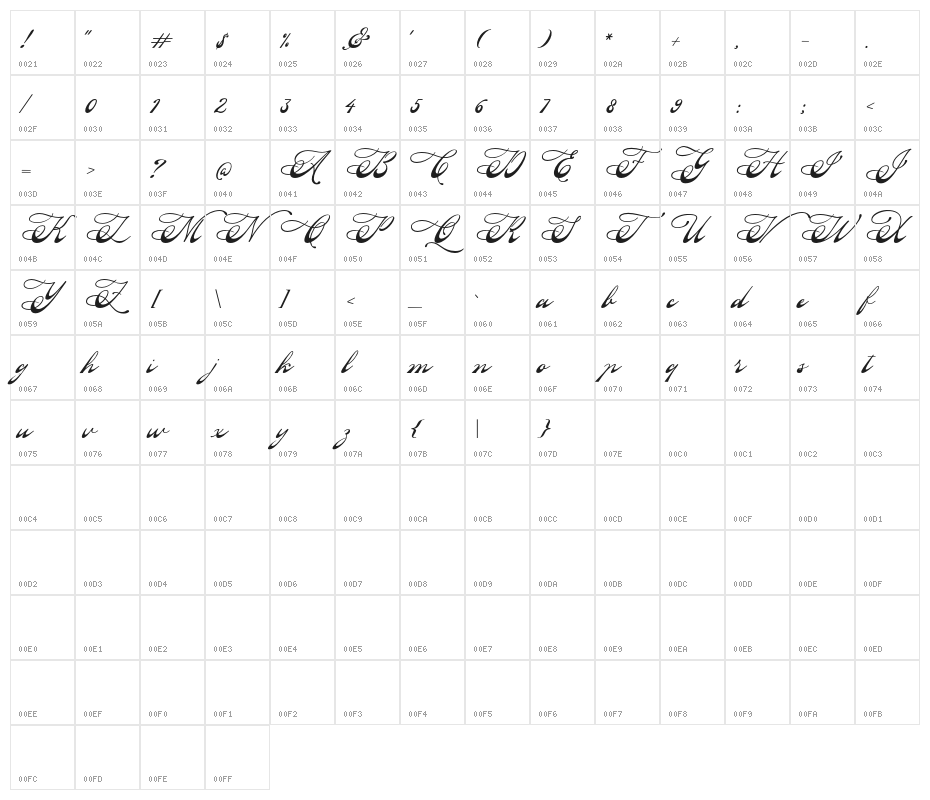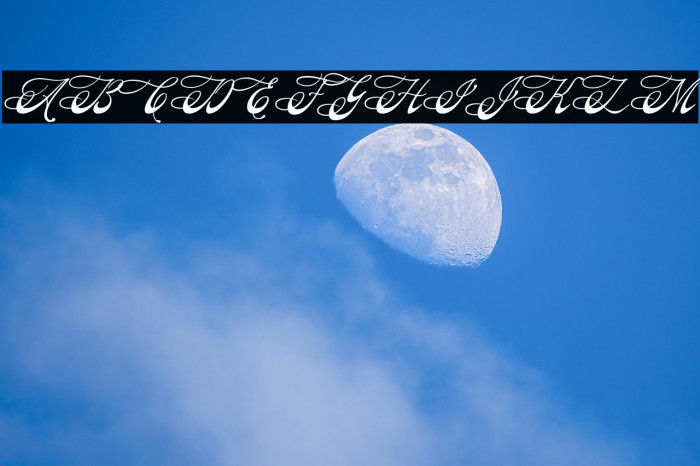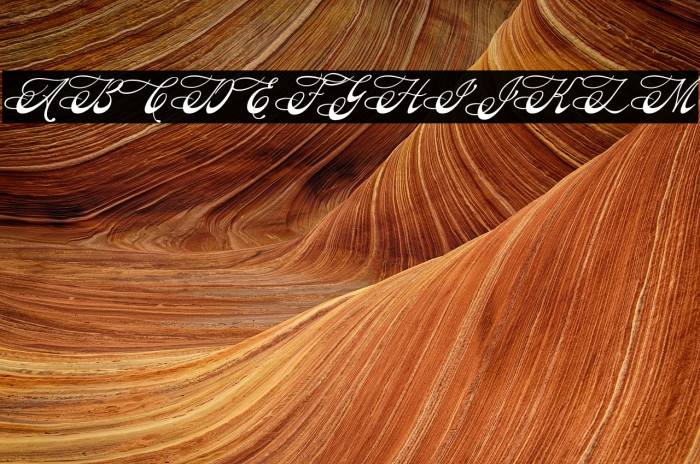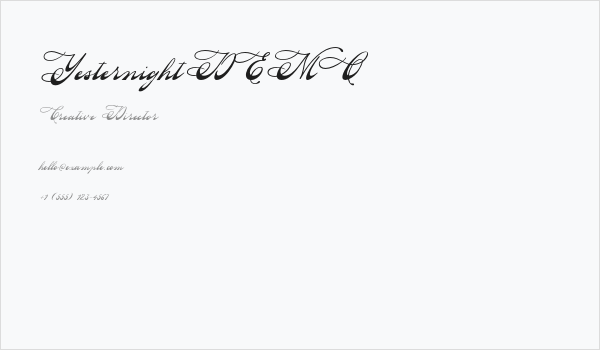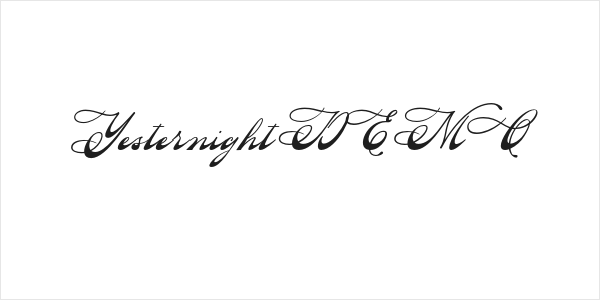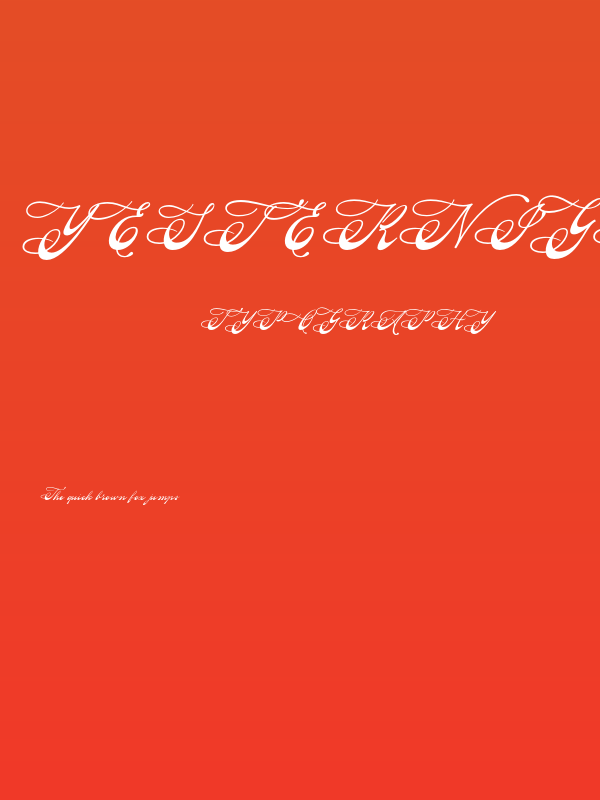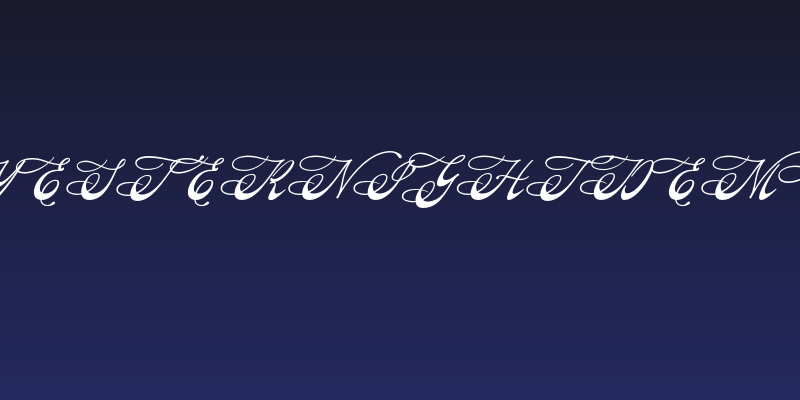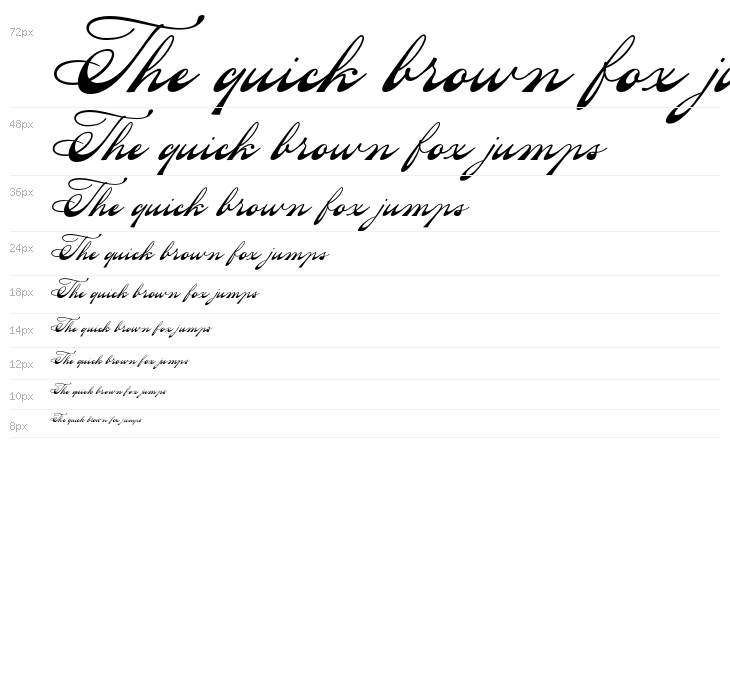
YesternightDEMO Font
YesternightDEMO Description
This elegant script font features a flowing, cursive style with intricate swashes and flourishes. The uppercase letters are ornate, with extended loops and decorative elements that give a sense of sophistication and grace. The lowercase letters maintain a consistent slant, enhancing the fluidity and elegance of the text. Numbers and special characters are designed to match the overall aesthetic, providing a cohesive look. The font's high contrast between thick and thin strokes adds to its dramatic and stylish appearance, making it suitable for formal and decorative purposes.
| Overall Style | Elegant, Decorative |
| Use Case | Logos, Invitations, Decorative Headlines |
| Proposed Projects | Ideal for wedding invitations, luxury branding, elegant signage, and decorative headlines. |